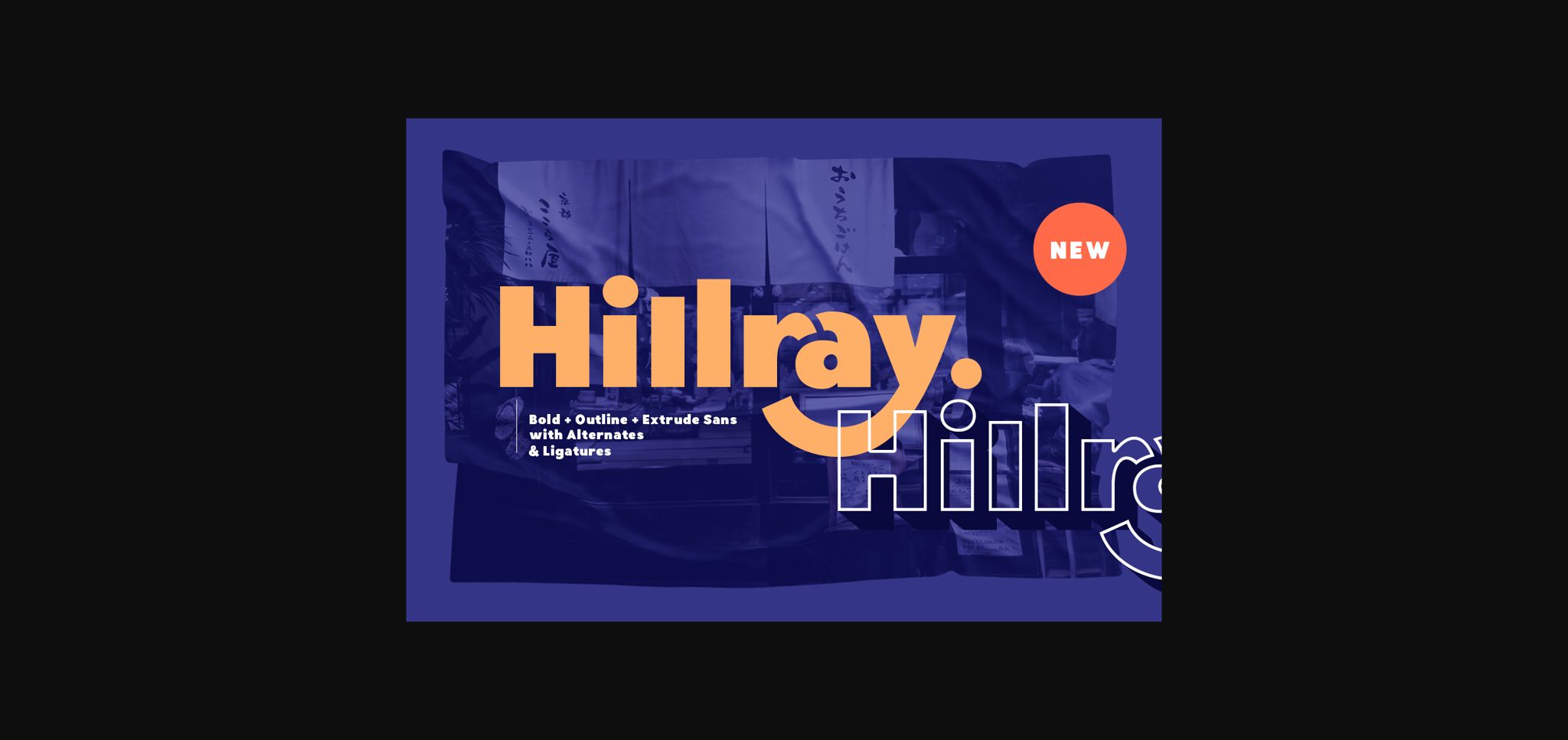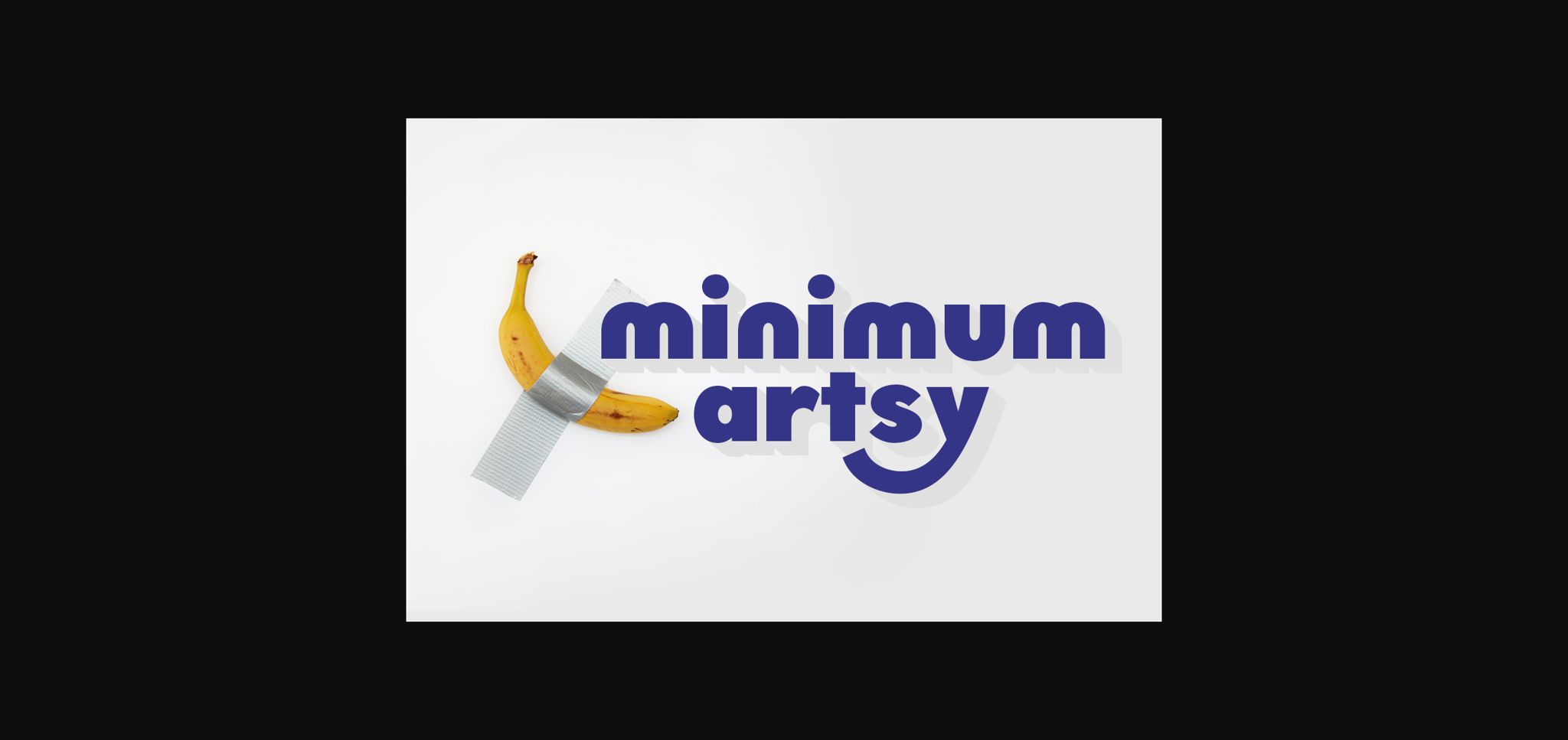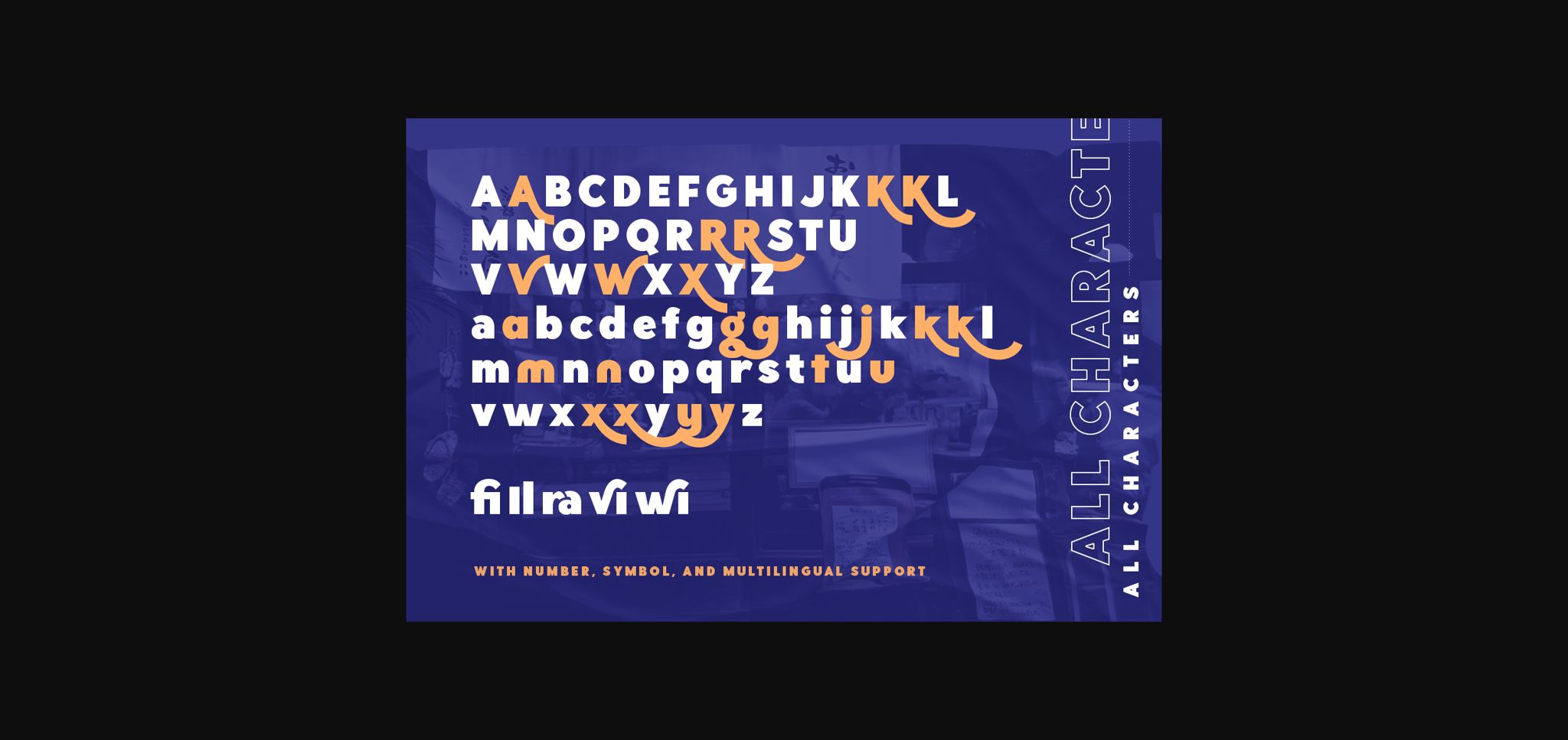
About Hillray Font
Hillray is a stylish bold sans serif that contains ligatures and alternates. This stylish font also includes extrude and outline style that will compliment the regular style! This font is perfect for posters, branding, merchandise, and much more!